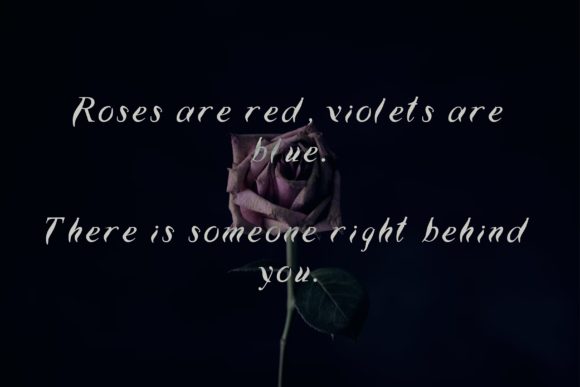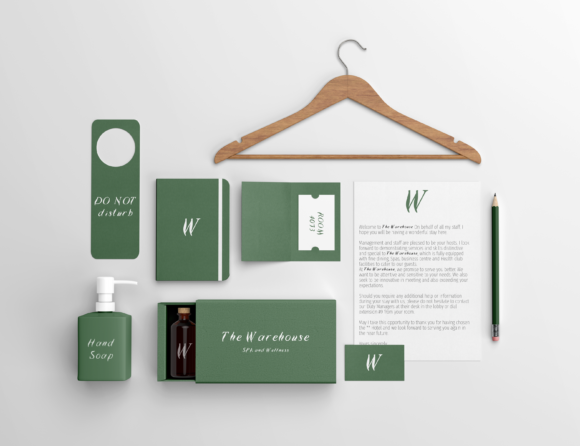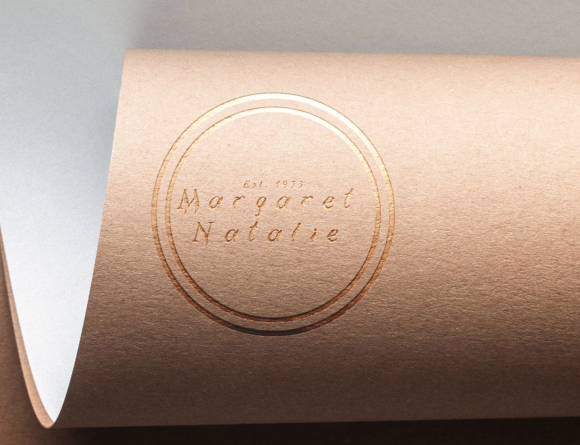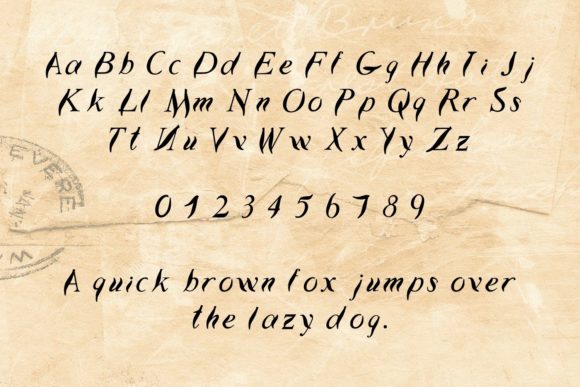
Introduction to Queen Eleanor Font
As designers, we’ve all been there – staring at a blank canvas, searching for the perfect font to bring our creative project to life. It’s that moment of inspiration when everything falls into place, and you know exactly what you need to elevate your design. For many of us, that moment comes when we discover a font that exudes elegance and sophistication – like the stunning Queen Eleanor Font.
With its unique blend of clean lines, curves, and a hint of gothic flair, Queen Eleanor Font is the perfect addition to any high-quality design. Whether you’re working on a logo, heading, or even a small-scale text, this versatile font is sure to add a touch of luxury to your project. And the best part? It’s a free download, making it an invaluable resource for designers looking to elevate their creative work without breaking the bank.
So, what makes Queen Eleanor Font so special? Its ability to shine with a transparent background, its suitability for both large and small scales, and its timeless design make it a valuable asset for any designer. In this article, we’ll delve into the world of Queen Eleanor Font, exploring its features, benefits, and why it’s a must-have in your design arsenal.
Key Features of Queen Eleanor Font
- High-quality design resource for creative projects, featuring elegant and sophisticated lettering.
- Unique characteristics include a transparent background and intricate details, making it perfect for backgrounds and overlays.
- Designed with precision and care, this font is ideal for designers looking for a high-quality, professional font.
- Perfect for designers working on creative projects, such as wedding invitations, branding, and editorial design, where a touch of elegance is required.
Honest Review: Queen Eleanor Font
I recently came across the Queen Eleanor Font, and I was excited to give it a try for my current creative project. This free download has been a valuable design resource, offering a unique and elegant touch to my work.
- ✨ High-quality design: The Queen Eleanor Font is beautifully crafted, with intricate details and a classic feel that makes it perfect for various design applications.
- ✨ Versatile use: This font is suitable for a range of creative projects, from editorial design to branding and even wedding invitations.
- ✨ Transparency: The font comes with a transparent background, which allows for easy overlay and customization.
While the Queen Eleanor Font is an excellent addition to any designer’s toolkit, I did encounter a few limitations:
- ⚠️ Limited font weights: The font only comes in a few weights, which might not be sufficient for designers who need a wider range of options.
- ⚠️ Not suitable for small text: The font’s intricate details make it less readable at small font sizes, which could be a challenge for certain design projects.
Overall, I’m impressed with the Queen Eleanor Font’s quality and versatility. While it may not be perfect, it’s a valuable design resource that I’ll definitely use again in the future.
Tips for Getting the Most Out of Queen Eleanor Font
Use the Queen Eleanor Font in conjunction with a transparent background to create a modern and sleek design. Experiment with different font sizes and colors to add visual interest to your project. Consider using the font in combination with other design resources, such as graphics and images, to create a unique and creative project.